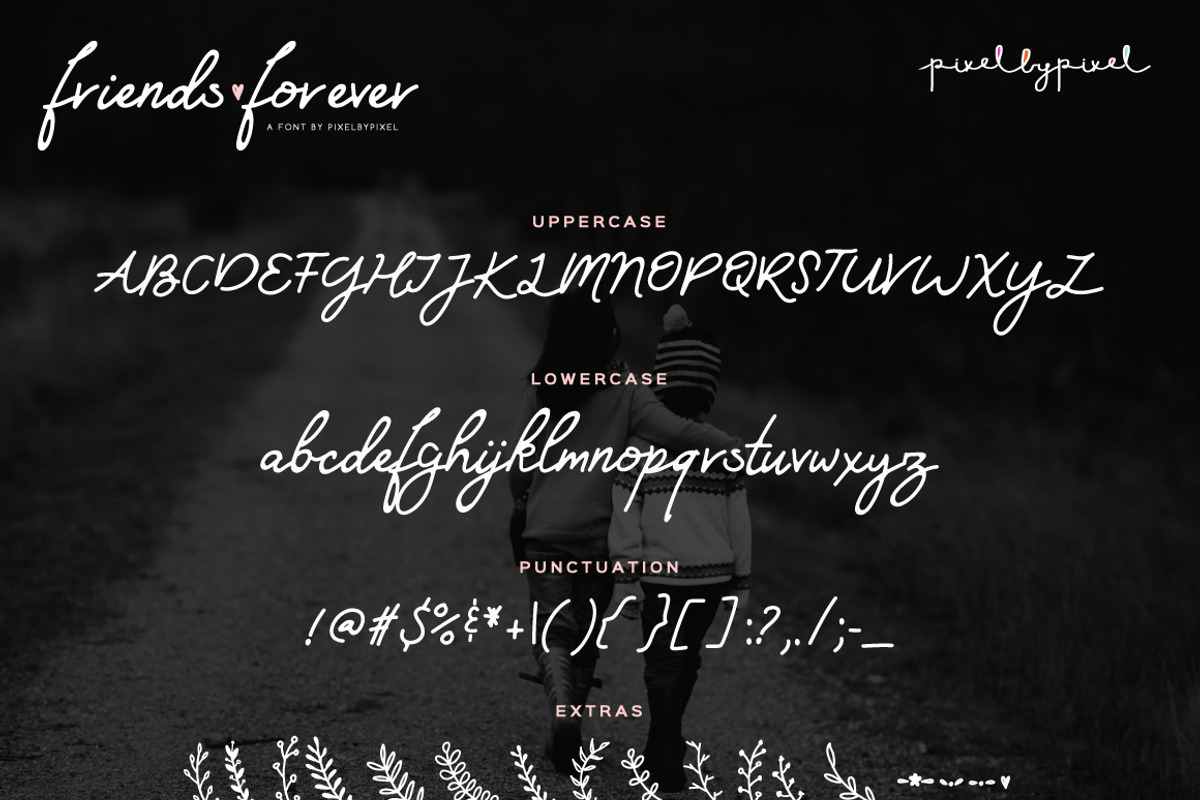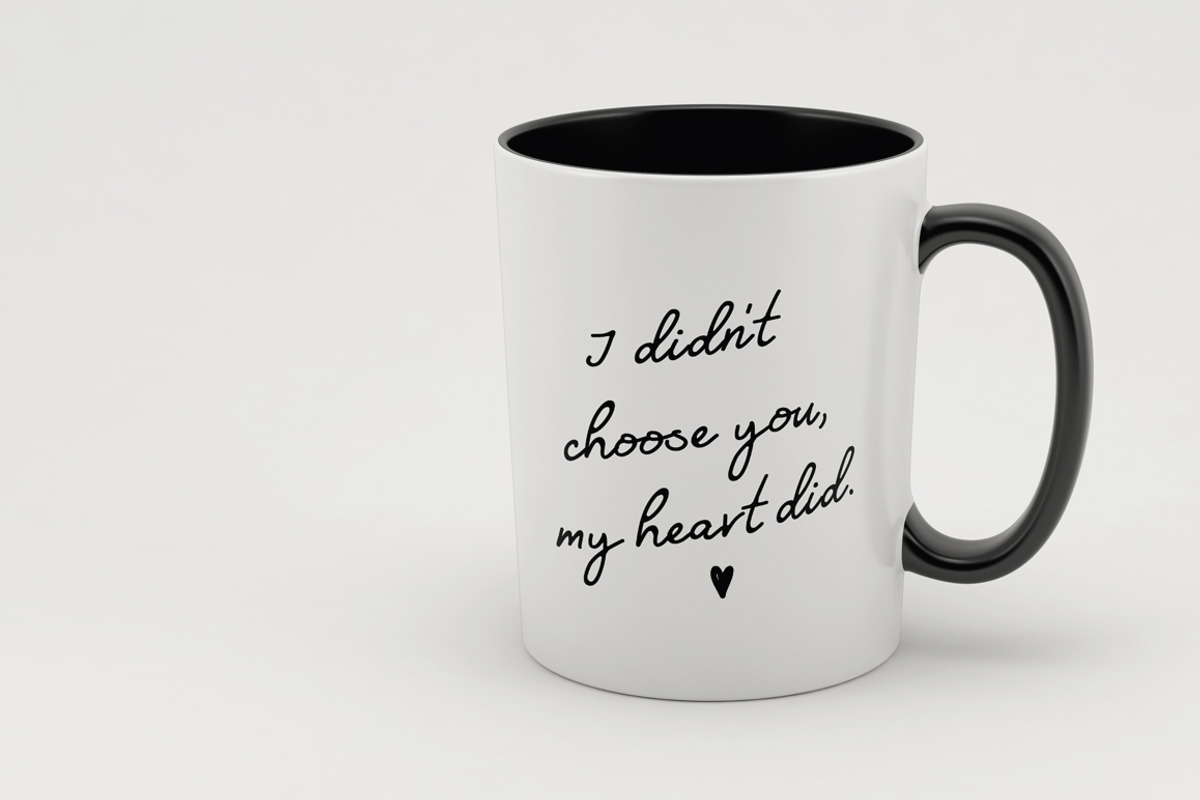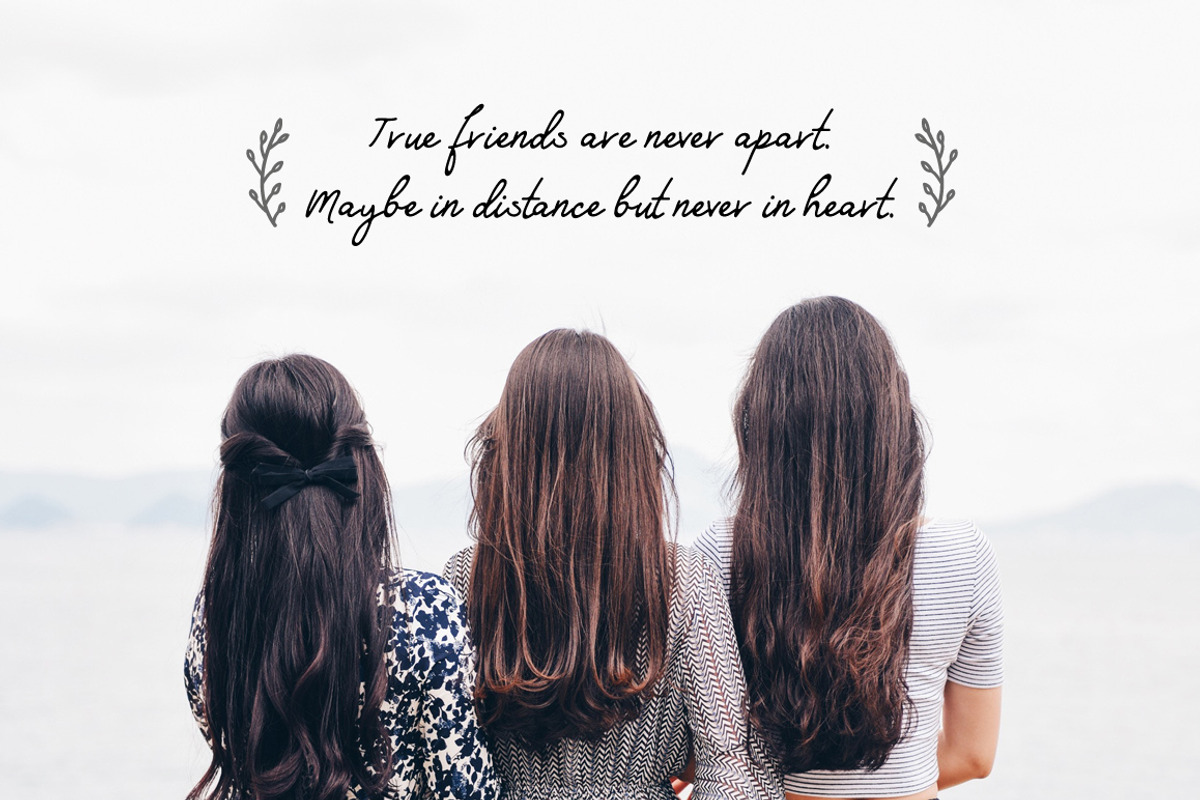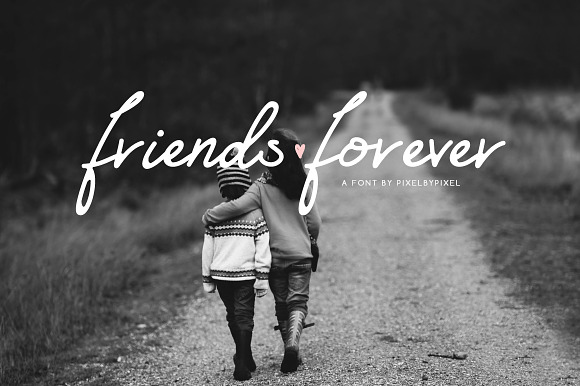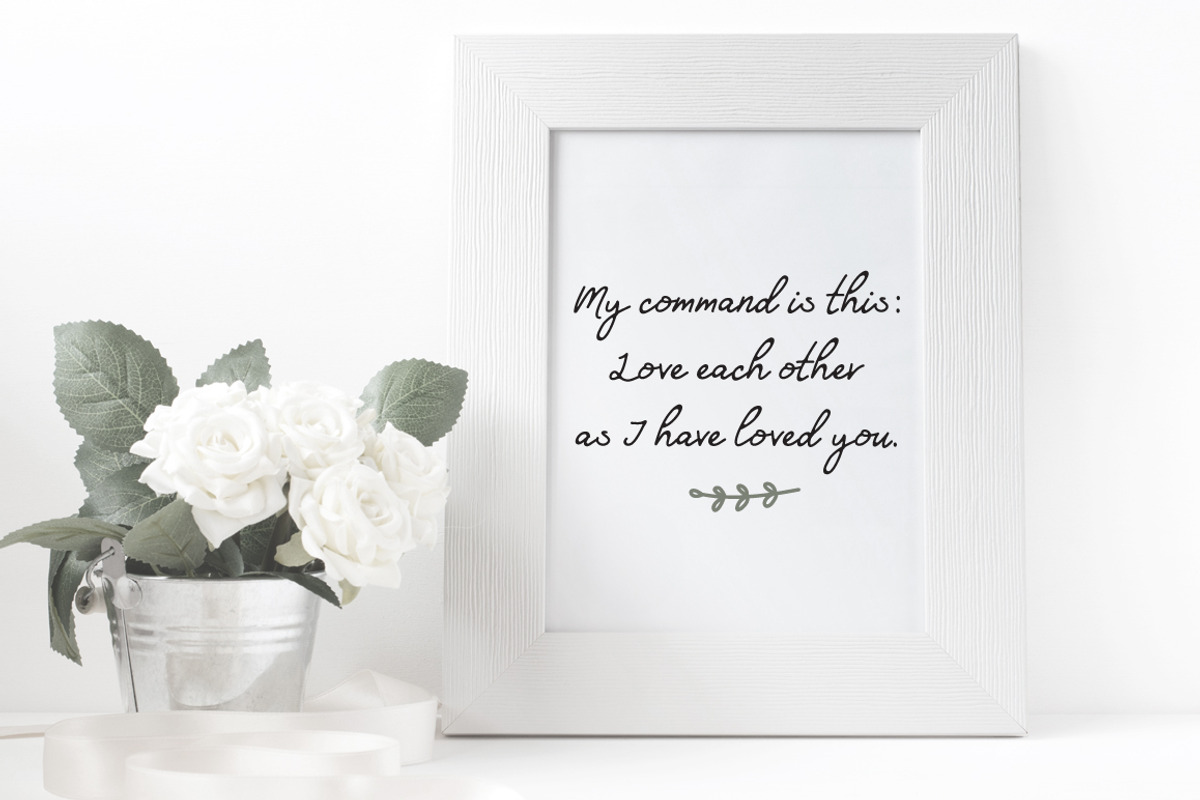
Friends Forever Font + Floral Extras
An imperfect girly script font. Combine with the extra floral elements font and make pretty logos and designs.
Uppercase and lowercase characters.
Numbers and punctuation.
Floral elements & swashes